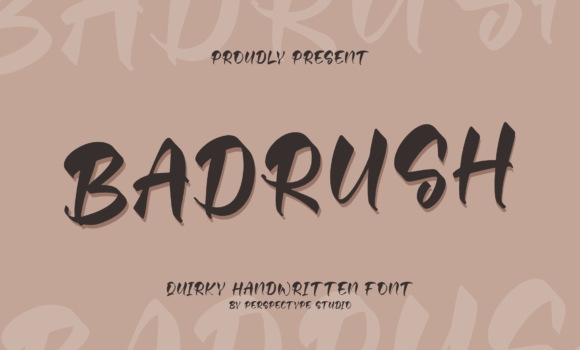
badrush
Badrush Font – Free Download Introduction to Badrush Font Badrush is a fun and quirky handwritten font. 📸 Preview Gallery 6 images 📌 Product Name Badrush Font 👤 Author Perspectype 📂 Category Explore ⬇️ Download Badrush Font FREE Free Download